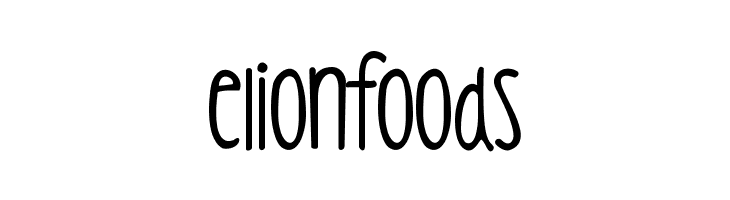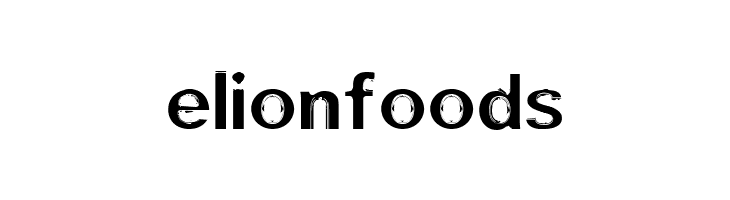
A modern, thin sans-serif font with a sleek and minimalist design.
A modern, italic sans-serif font with medium weight and smooth strokes.
A decorative font with leaf and vine embellishments, offering a whimsical, organic style.
A distressed, weathered font with a dynamic, chaotic style.
A playful, informal handwritten font with dynamic strokes.
A playful, hand-drawn font with tall, narrow letters and rounded edges.
A dynamic, handwritten-style font with artistic flair.
A playful, hand-drawn font with quirky, irregular characters.